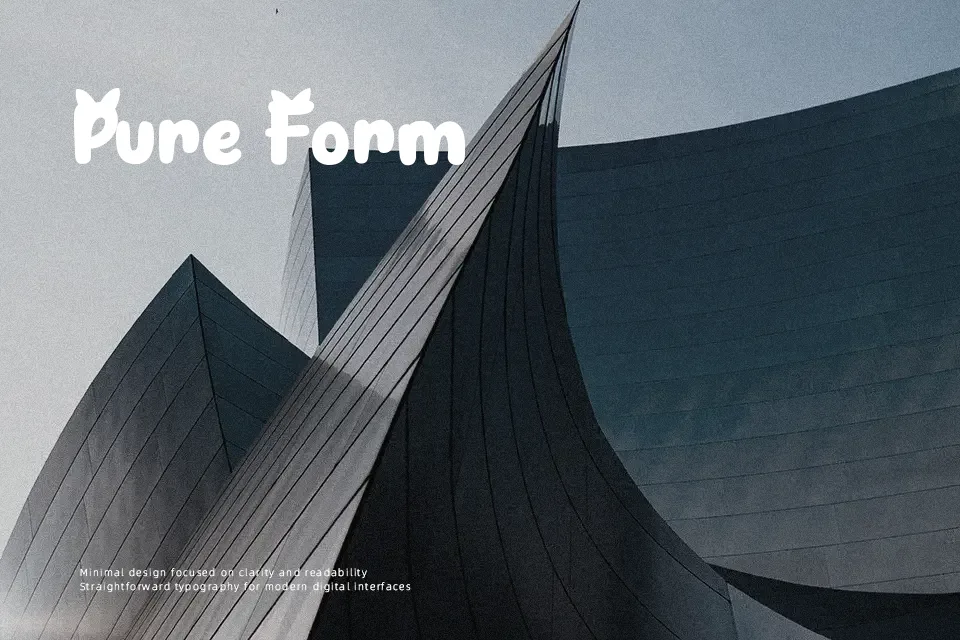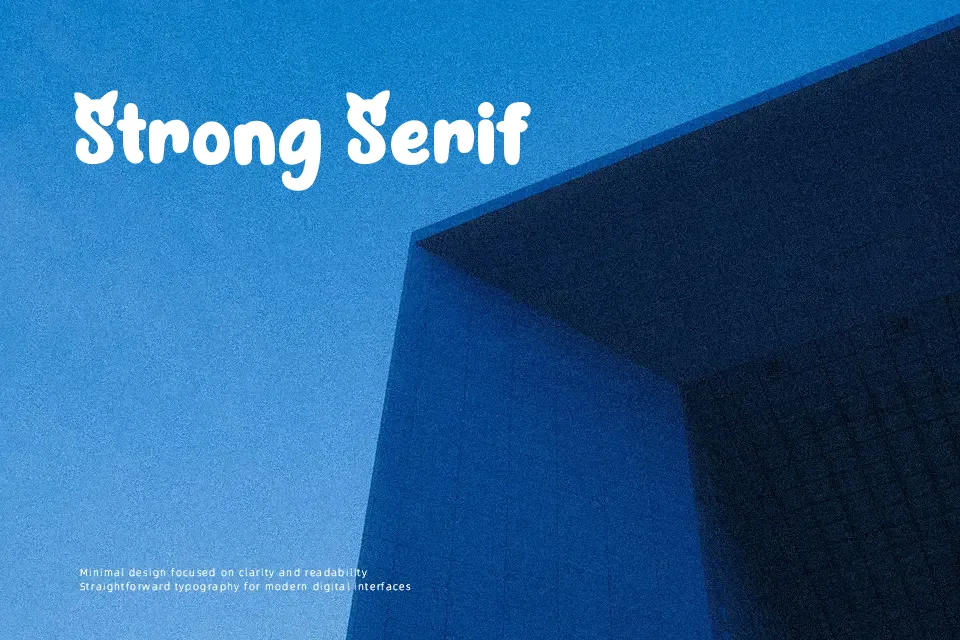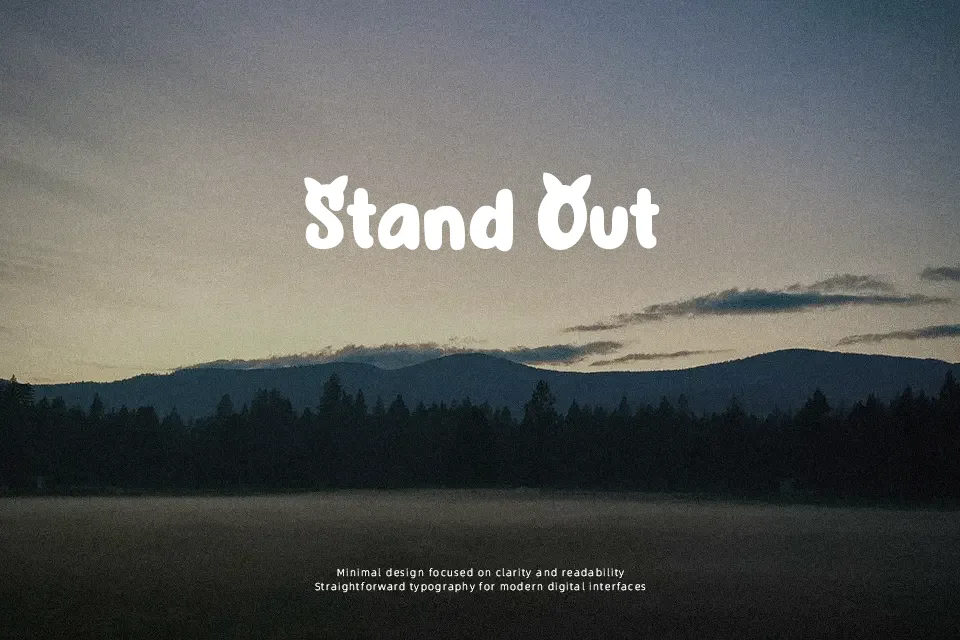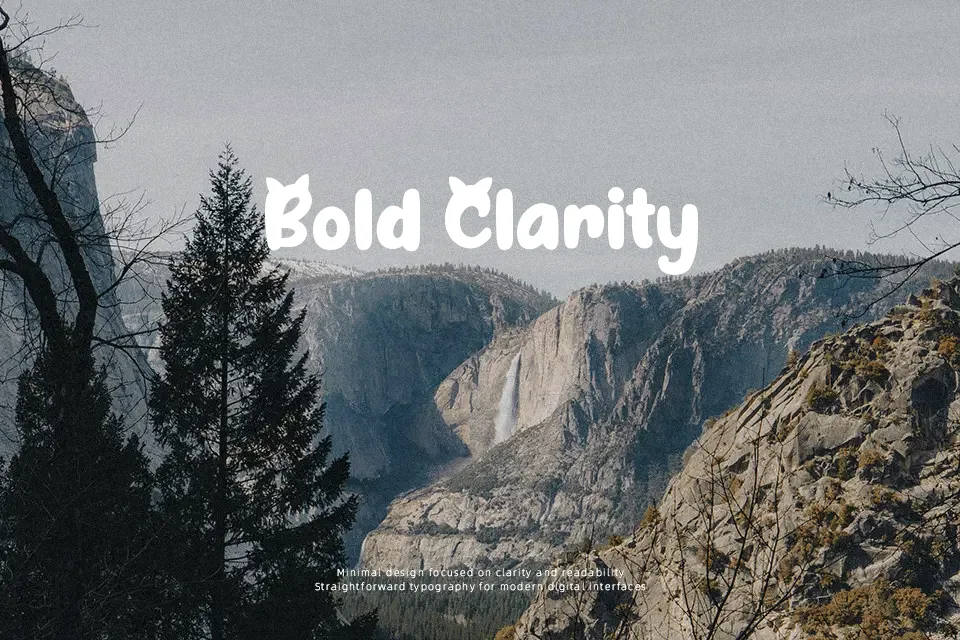
Cattyla Font
Cattyla Font delivers an animated, whimsical aesthetic built on organic outlines, uniform stroke weight, and friendly rounded terminals. The uppercase alphabet incorporates subtle feline ear shapes into its anatomy, creating an immediate graphic identity for animal themes and youth-focused media. Generous character spacing and open counters maintain solid legibility in short headlines, YouTube thumbnails, and illustrative logo emblems. However, the prominent decorative ornaments and casual hand-drawn structure make continuous body reading uncomfortable across multi-line paragraphs. The heavy decorative forms become less effective at smaller text sizes, but the letterforms excel when showcased prominently in large display formats.
Best For: children book covers,pet shop branding,cartoon poster headlines,merchandise graphics
Not Ideal For: long paragraph text,corporate reports,dense editorial layouts,legal documentation
Perfect for headline, kids, and logo, with a cute and cartoon style.